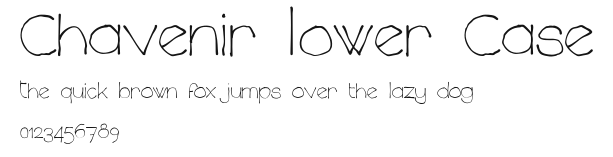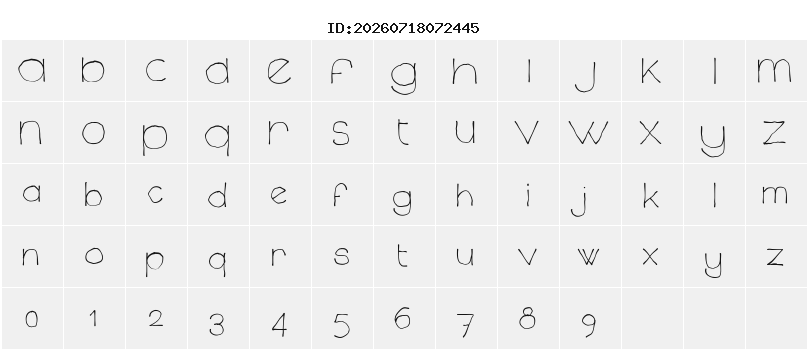
• Font Name: Chavenir Lower Case
• Font Style: LC
• Full Font Name: Chavenir Lower Case LC
• Designer: Måns Grebäck
About Chavenir Lower Case.ttf
Chavenir Lower Case.ttf is a modern, elegant sans-serif font designed for ultimate readability and visual harmony. Perfect for branding, headlines, web design, and print materials.